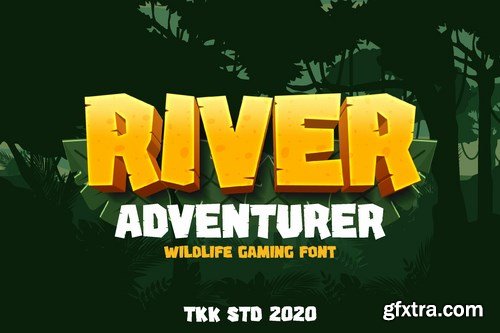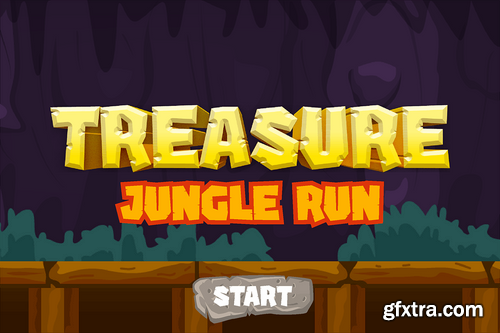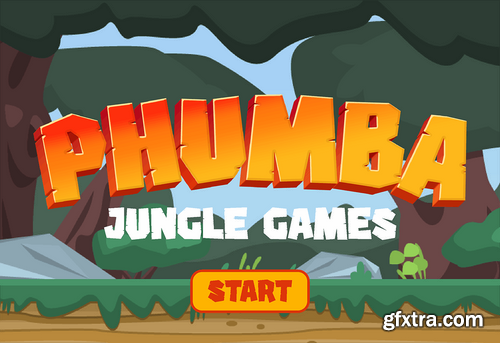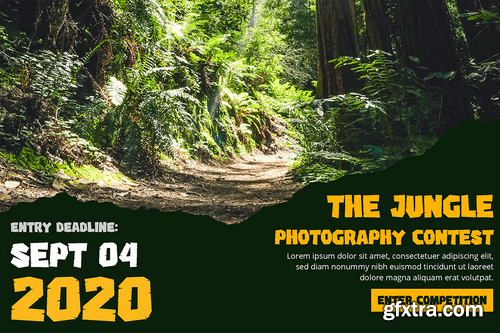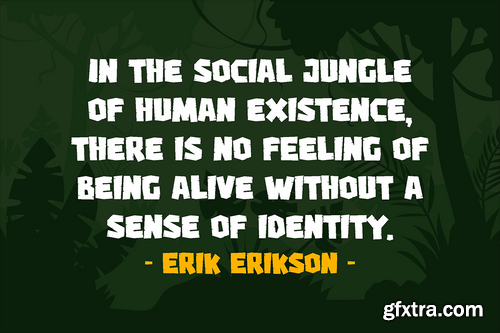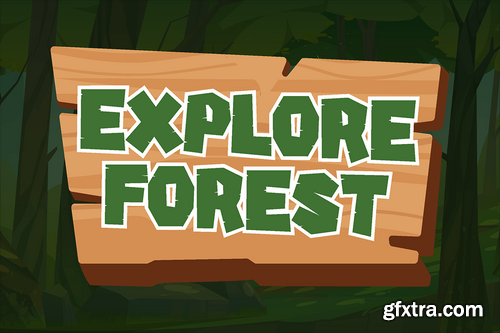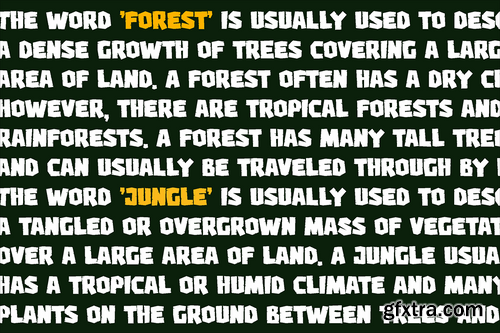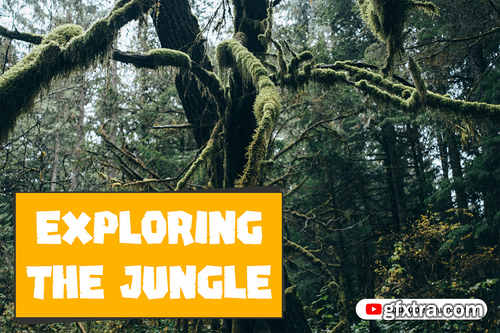
A wildlife vibe and adventurous blocky sans serif font, with all caps shape. Looks like a rock boulder from the river bank, given a rough cut, and shape into the alphabet.
The strong and stern feeling, doesn't take a way the adventurous and happiness surrounding the font. Suit perfectly for and Adventure Online Games, poster, movie title, fast food menu, magazine, youtube covers, youtube thumbnails, social media page covers and so on... Happy designing. What’s Included : River Adventurer family (OTF/TTF/WOFF) Basic latin A-Z and a-z Numbers Punctuation Works on PC & Mac Simple installations Accessible in the Adobe Illustrator, Adobe Photoshop, Adobe InDesign, even work on Microsoft Word. PUA Encoded Characters Fully accessible without additional design software.